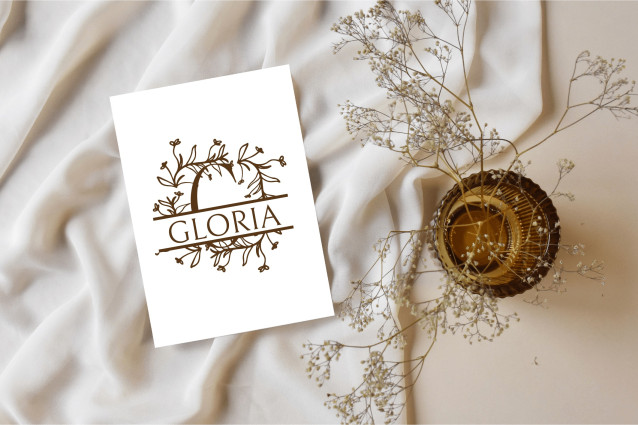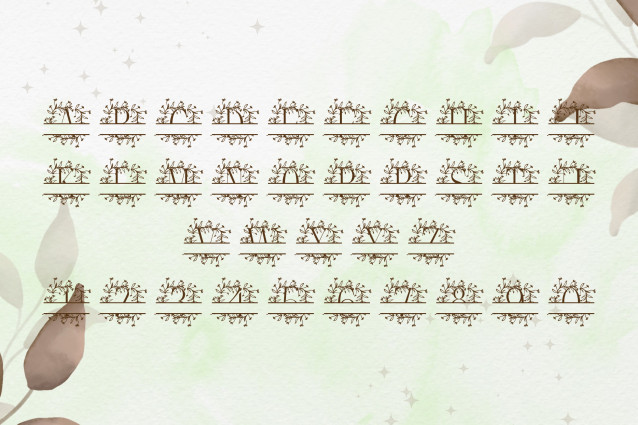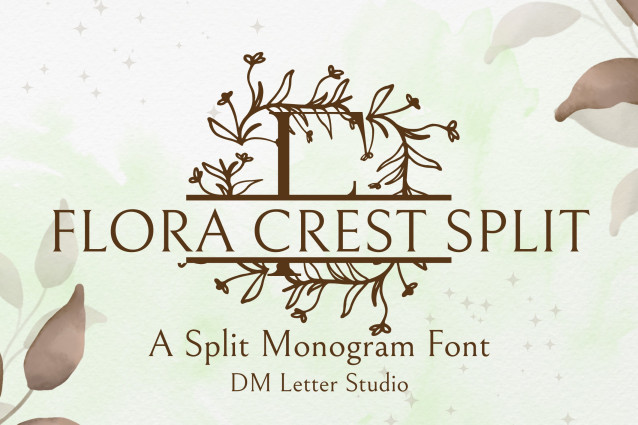
Flora Crest Split Monogram Font
Flora Crest Split Monogram is a classic serif monogram font featuring a clean split letter design enriched with graceful botanical elements. Each uppercase character is thoughtfully divided to allow space for custom names or text, while delicate floral flourishes frame the design with timeless elegance. This font is ideal for wedding signage, personalized gifts, Cricut projects, and luxurious event branding.